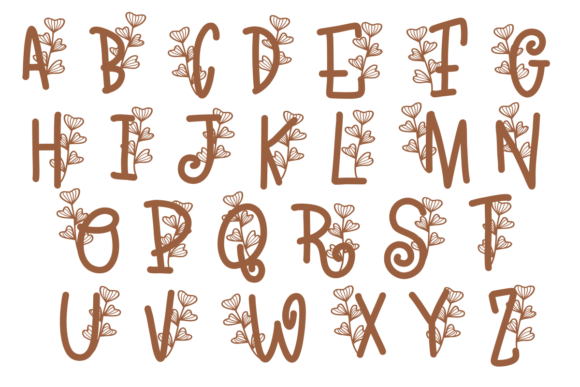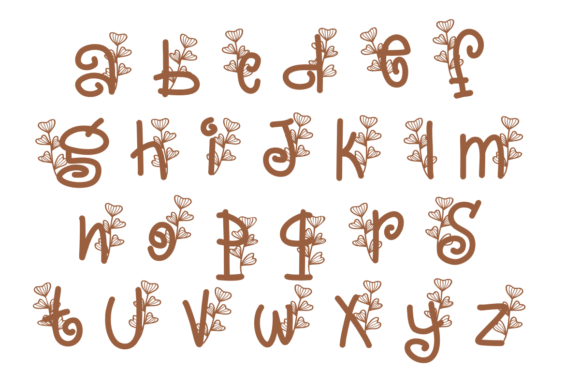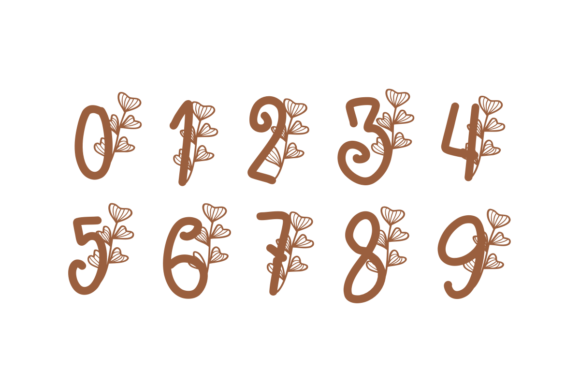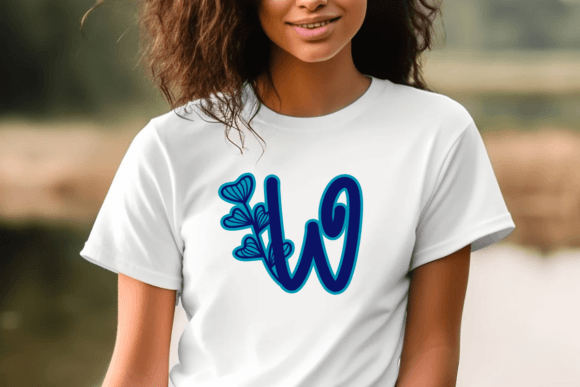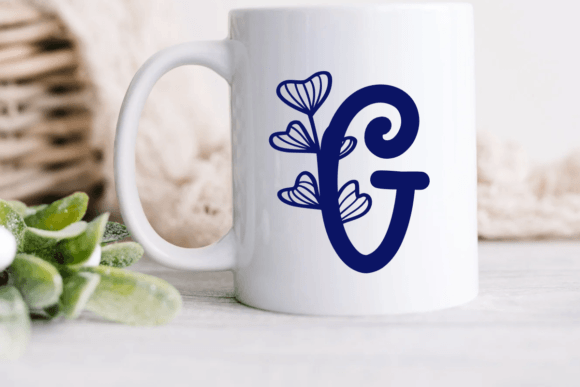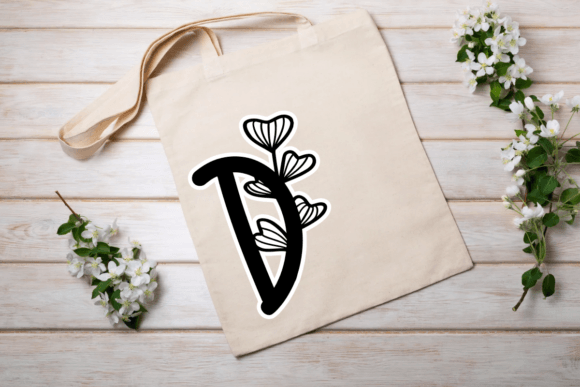
Ginkgo Font: The Perfect Addition to Your Design Arsenal
Are you a designer, crafter, or DIY enthusiast looking for a unique and versatile font to elevate your creative projects? Look no further than the Ginkgo Font! This adorable decorative font is perfect for a wide range of applications, from personal notes and diaries to professional designs and marketing materials.
What is Ginkgo Font?
Ginkgo Font is a carefully crafted decorative font designed to add a touch of whimsy and charm to your projects. Its cute and playful appearance makes it an excellent choice for creative endeavors where you want to convey a sense of friendliness and approachability.
Uses for Ginkgo Font
The versatility of Ginkgo Font is one of its standout features. Here are some ideas for how you can use it in your designs:
- Note-taking and journaling: Add a personal touch to your notes and diaries with Ginkgo Font. It’s perfect for writing down your thoughts, ideas, and inspiration.
- Greeting cards and invitations: Create beautiful and unique greeting cards, invitations, and party decorations with Ginkgo Font.
- Banners and signs: Use Ginkgo Font to create eye-catching banners and signs for events, promotions, or simply to add a decorative touch to your home or office.
- Social media graphics: Elevate your social media presence with Ginkgo Font. Use it to create engaging graphics, posts, and stories that will capture your audience’s attention.
- Merchandise and products: Ginkgo Font is perfect for designing a wide range of merchandise, such as mugs, t-shirts, tote bags, and more.
- Stationery and paper goods: Create beautiful stationery, notebooks, and paper goods with Ginkgo Font. It’s a great way to add a personal touch to your correspondence.
Why Choose Ginkgo Font?
So, what makes Ginkgo Font an excellent choice for designers and crafters? Here are a few reasons:
- Unique and eye-catching: Ginkgo Font has a distinctive and adorable appearance that will set your designs apart from the rest.
- Versatile: As mentioned earlier, Ginkgo Font can be used for a wide range of applications, from personal to professional.
- Easy to read: Despite its decorative nature, Ginkgo Font is easy to read and understand, making it perfect for body text and other written content.
- Customizable: You can use Ginkgo Font in various colors, sizes, and styles to match your brand’s aesthetic or personal preferences.
Tips for Using Ginkgo Font
To get the most out of Ginkgo Font, here are some tips to keep in mind:
- Pair it with other fonts: Combine Ginkgo Font with other fonts to create a unique and visually appealing design.
- Experiment with colors: Try out different colors and textures to add depth and interest to your designs.
- Use it sparingly: While Ginkgo Font is adorable, it’s essential to use it sparingly to avoid overwhelming your design.
In conclusion, Ginkgo Font is an excellent addition to any designer’s or crafter’s arsenal. Its unique and eye-catching appearance, versatility, and ease of use make it perfect for a wide range of applications. Whether you’re creating personal or professional designs, Ginkgo Font is sure to bring a touch of whimsy and charm to your projects.